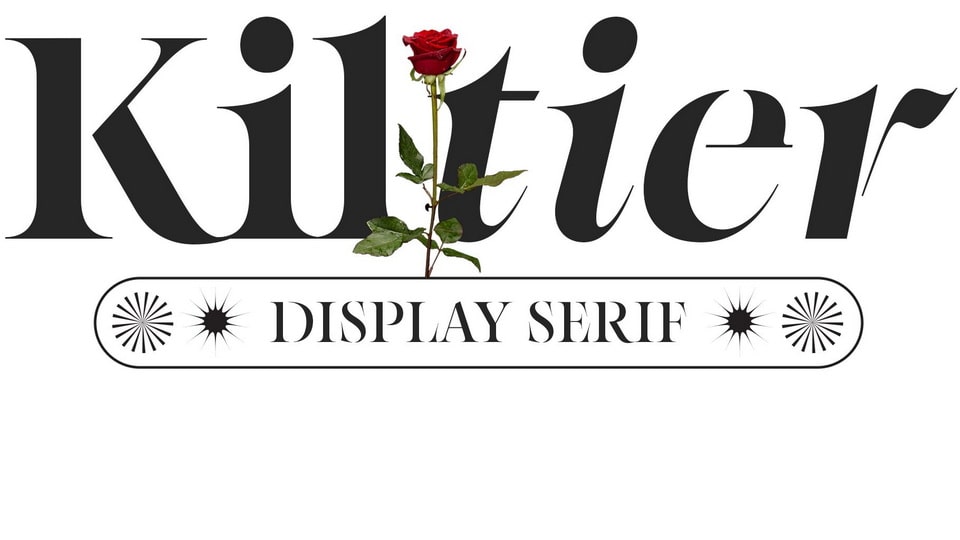
Download Kiltier font, a high-contrast serif typeface that blends contemporary aesthetics with timeless elegance, crafted with precision and meticulous attention to detail.